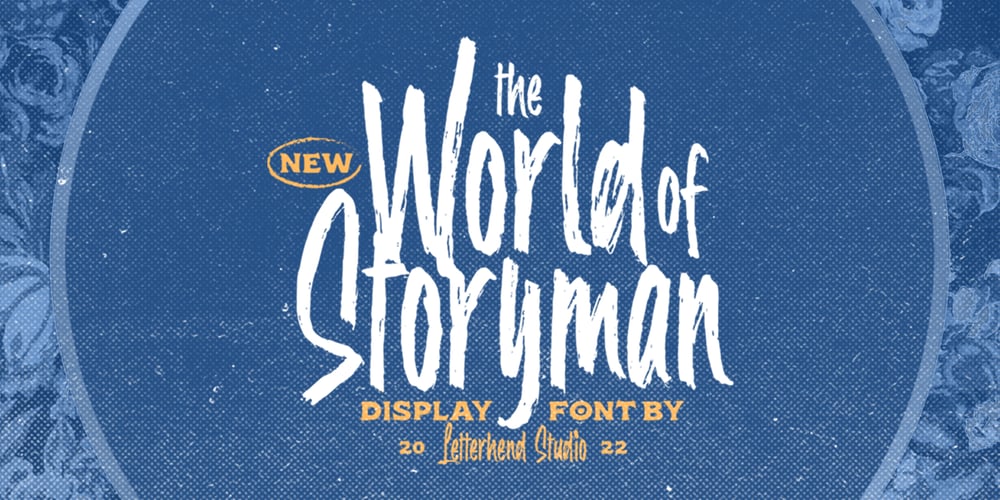
The World Of Storyman Font Family was designed by Hendry Juanda and published by Letterhend. The World Of Storyman contains 1 styles and family package options. The World of Storyman is a condensed hand drawn brush font which is purposely made for headline, display or logotype, and signature which need a standout appearing. This font is also suitable to be applied especially in logo, and the other various formal forms such as invitations, labels, logos, magazines, books, greeting / wedding cards, packaging, fashion, make up, stationery, novels, labels or any type of advertising purpose.Features : uppercase & lowercase numbers and punctuation multilingual PUA encoded We highly recommend using a program that supports OpenType features and Glyphs panels like many of Adobe apps and Corel Draw, so you can see and access all Glyph variations.